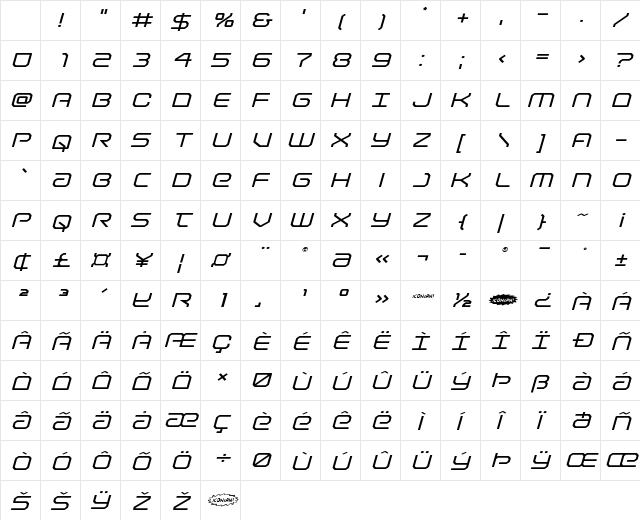
Complete Light Brigade Expanded Italic glyph index. Displaying only characters natively supported by Light Brigade Expanded Italic font.
Light Brigade Expanded Italic is a composed and adaptable typeface that performs quietly and consistently across a wide range of design contexts. The slanted form adds forward momentum and visual energy. Its slender proportions lend an understated elegance to any composition.